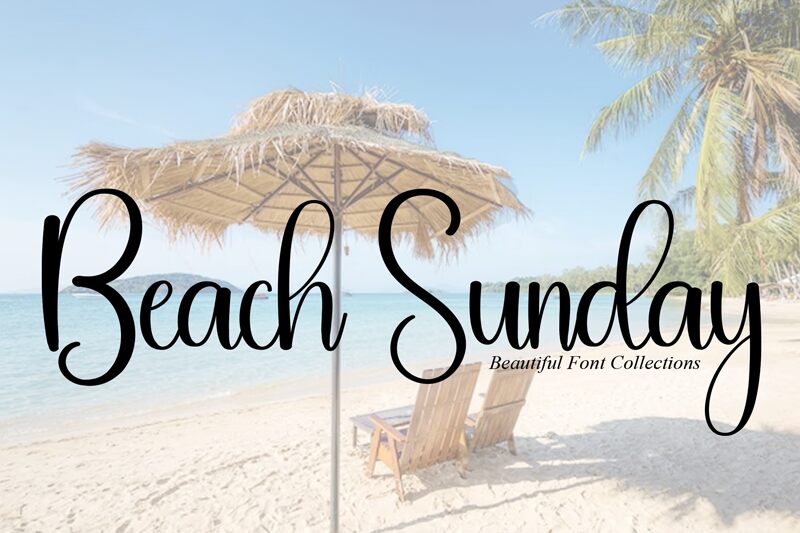
Beach Sunday
Beach Sunday is a captivating handwritten font designed by Andi Moz. Its organic, free-flowing strokes and elegant curves evoke a sense of beachside leisure and carefree summer days. The script's natural fluidity seamlessly blends into a harmonious, lively composition, making it an ideal choice for a wide range of design applications, from invitations and greeting cards to branding and packaging.
The font's timeless appeal and versatility make it a compelling option for designers seeking to infuse their projects with a touch of effortless charm and coastal-inspired aesthetics. Whether enhancing a rustic wedding suite or adding a playful flair to a beach-themed logo, Beach Sunday effortlessly captures the essence of sun-drenched adventures and laidback, vacation-inspired vibes.